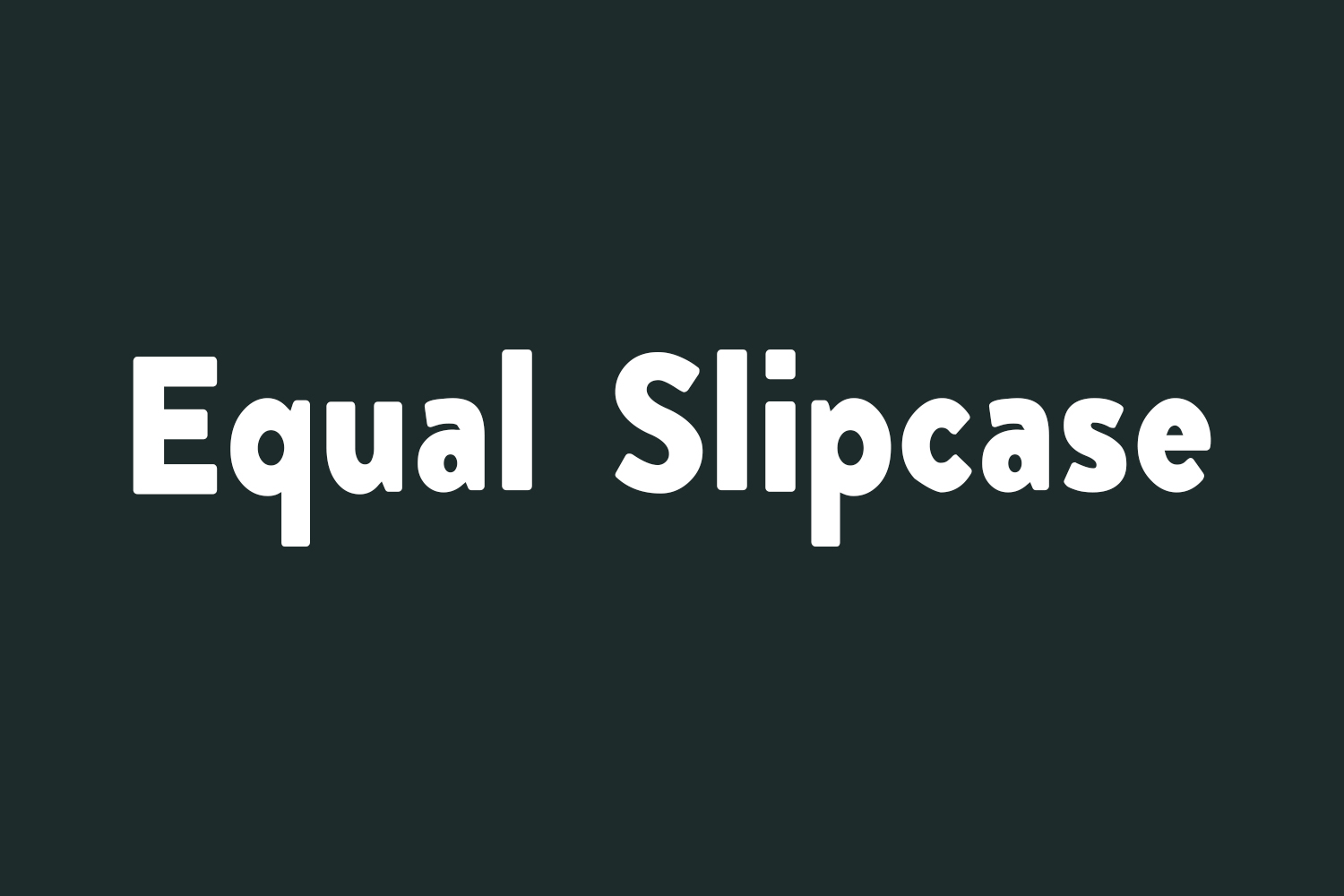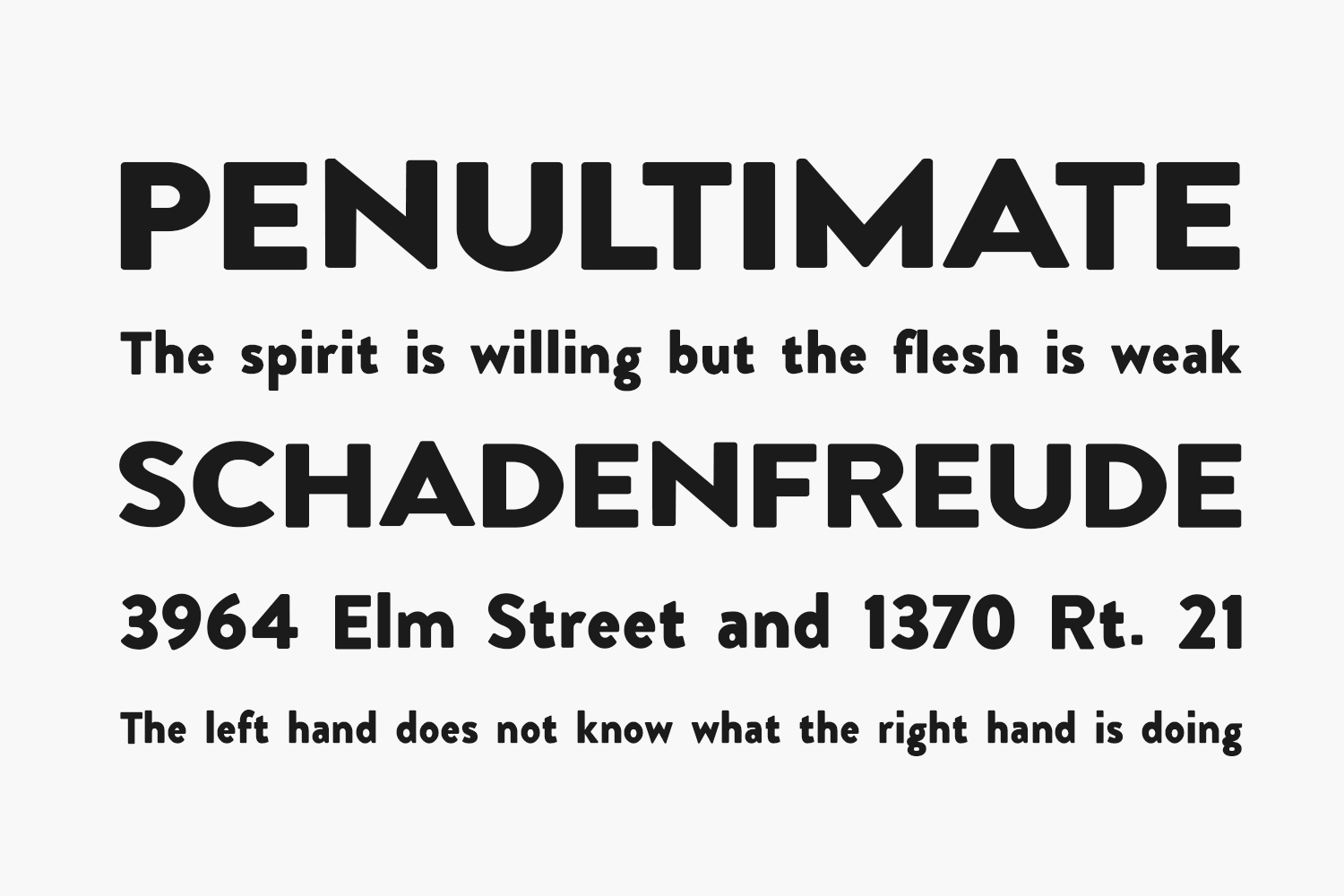
Equal Slipcase Free Font – Clean Sans Serif for Minimalist Typography
Equal Slipcase is a clean and modern sans-serif typeface designed by UI Creative to bring clarity and minimalism to your creative projects. With its structured letterforms, balanced proportions, and smooth readability, this free decorative font works perfectly for crafting elegant logos, magazine headers, digital interfaces, brand kits, and more. Available in TTF format — ideal for designers seeking a professional, readable font that enhances legibility without overpowering your layout.
Why Choose Equal Slipcase?
- Clean & Modern Style: Combines simplicity with functionality for a sleek, contemporary appearance perfect for minimalist visuals.
- Ideal for Editorial Design: Perfect for blog headers, article titles, or advertising needing a crisp tone.
Where to Use Equal Slipcase?
Equal Slipcase shines across a variety of design applications:
- Logos & Brand Identity: Adds confidence to brand identities for startups, lifestyle blogs, or fashion labels needing a clean tone.
- Digital Interfaces: Ideal for web headers, landing page buttons, or mobile app text where clear communication is essential.
- Packaging Design: Enhances product tags on artisanal goods, clothing labels, or food packaging requiring a modern look.
- Editorial Headers: Stands out in blog titles, magazine covers, and banners with a crisp, stylish charm.
- Social Media Graphics: Creates bold text overlays for Instagram Stories, TikTok videos, or YouTube banners with a sleek presence.
Design Tips with Equal Slipcase
- Glyphs: Uppercase (A-Z), lowercase (a-z), numerals, punctuation, basic Latin characters.